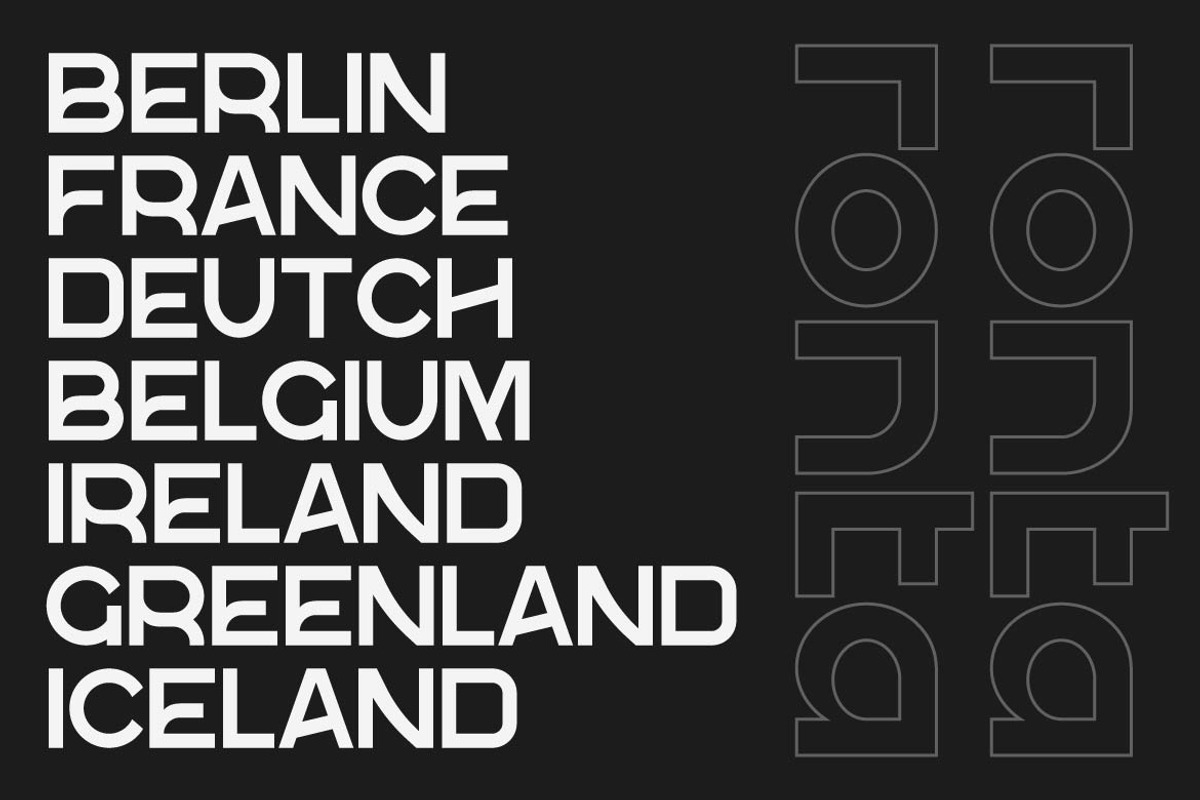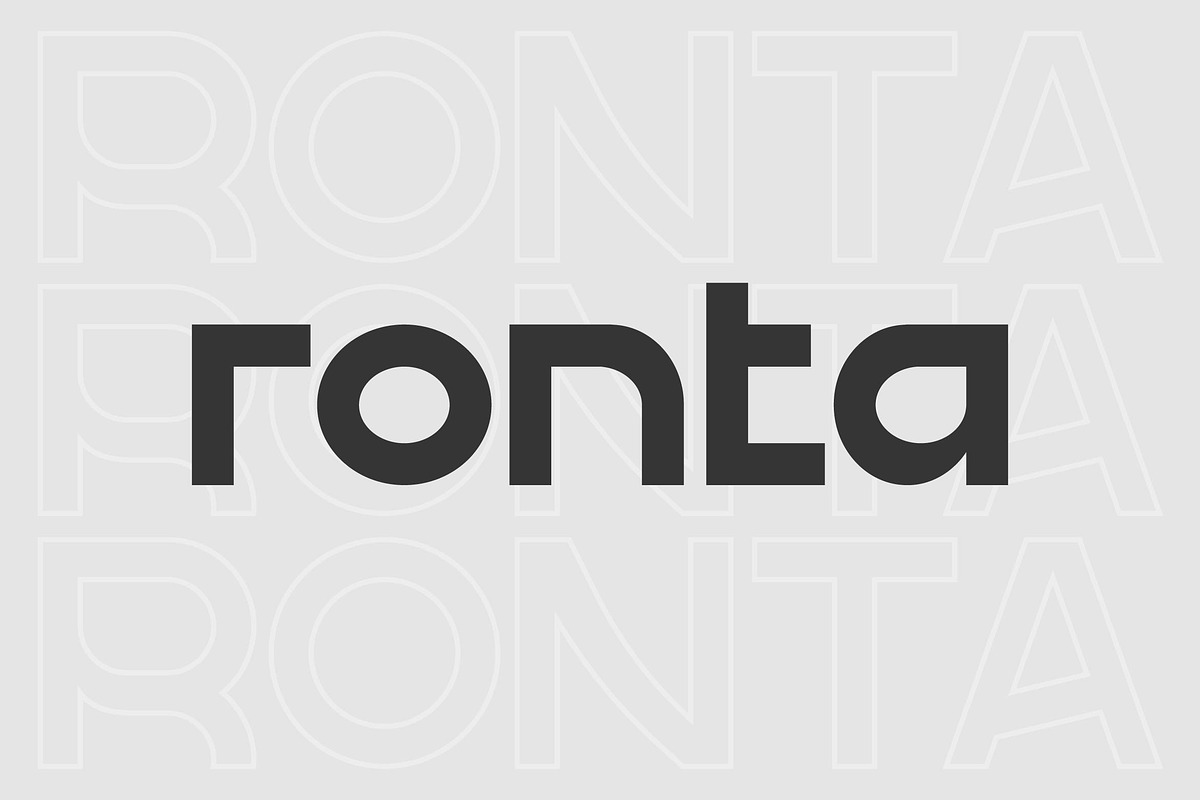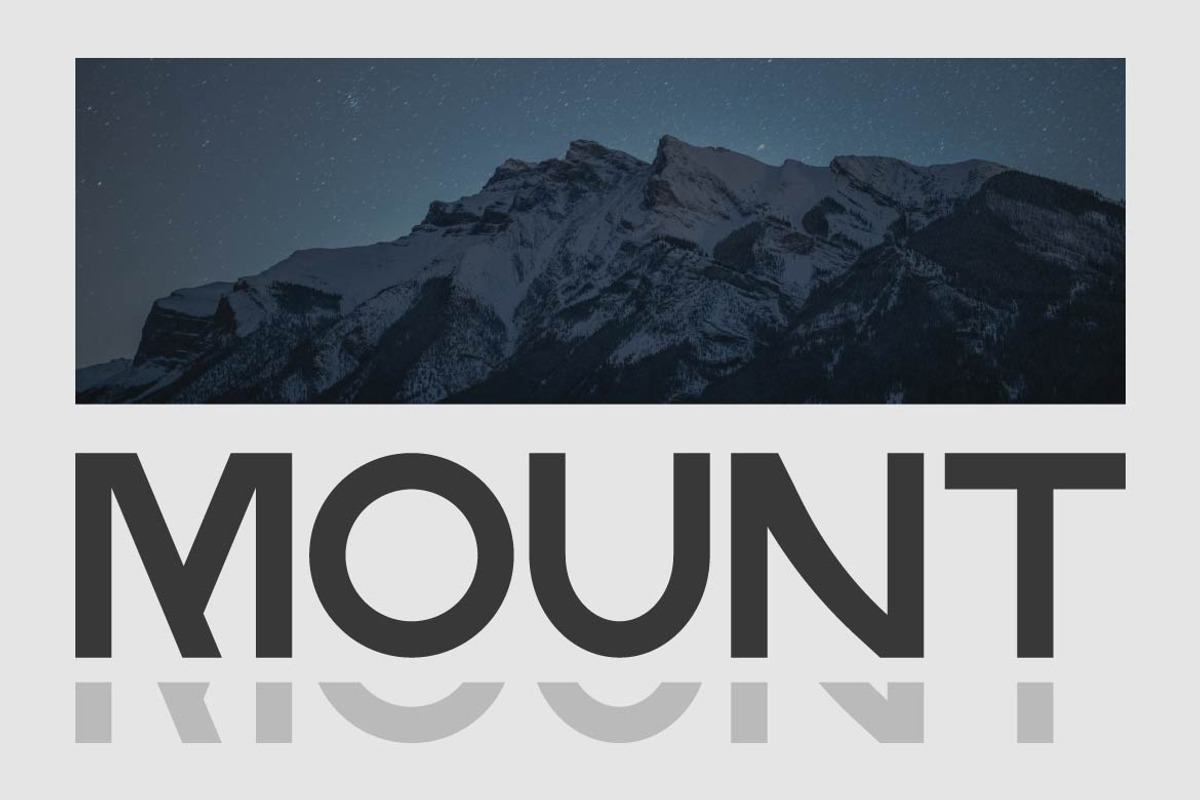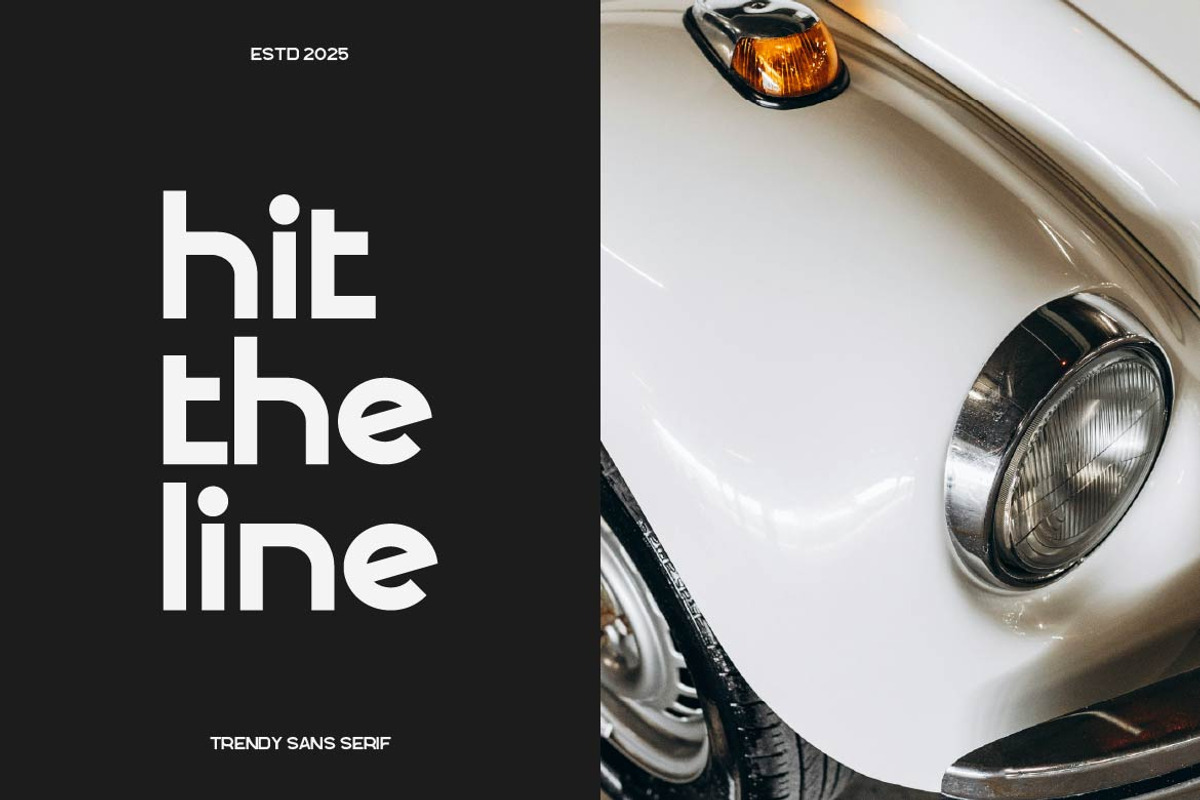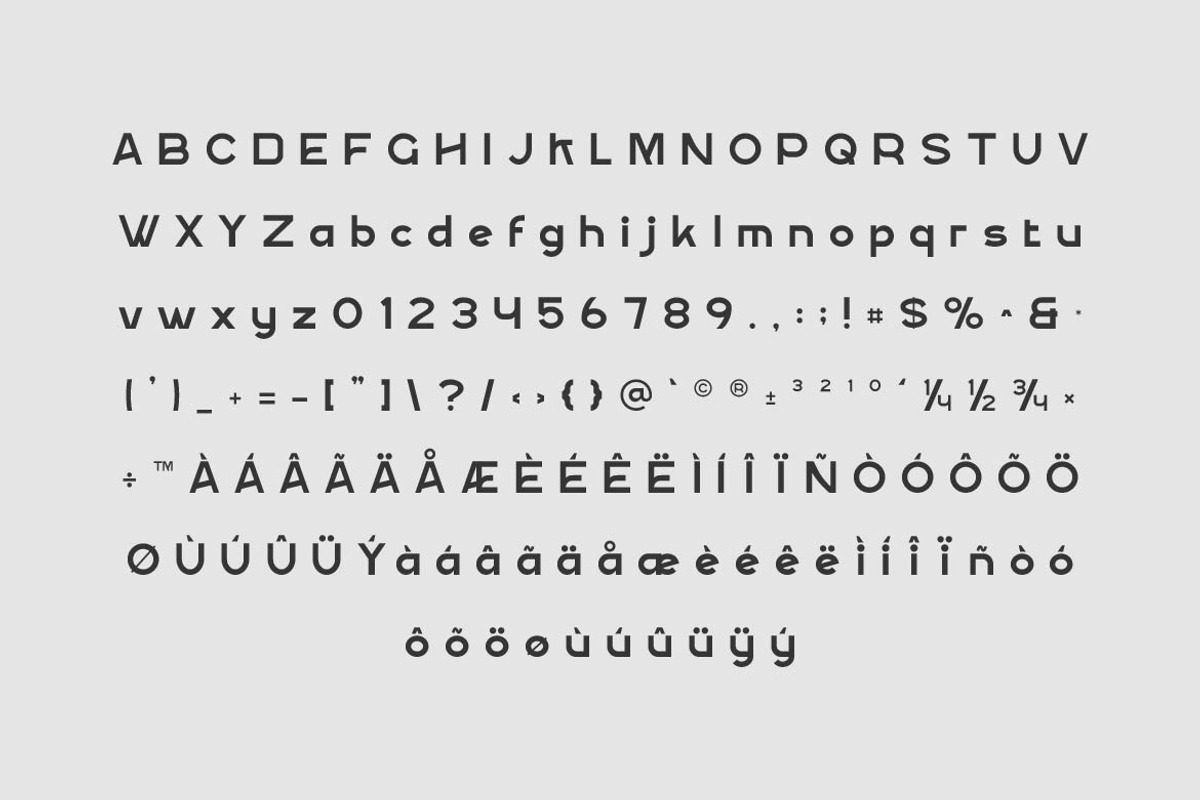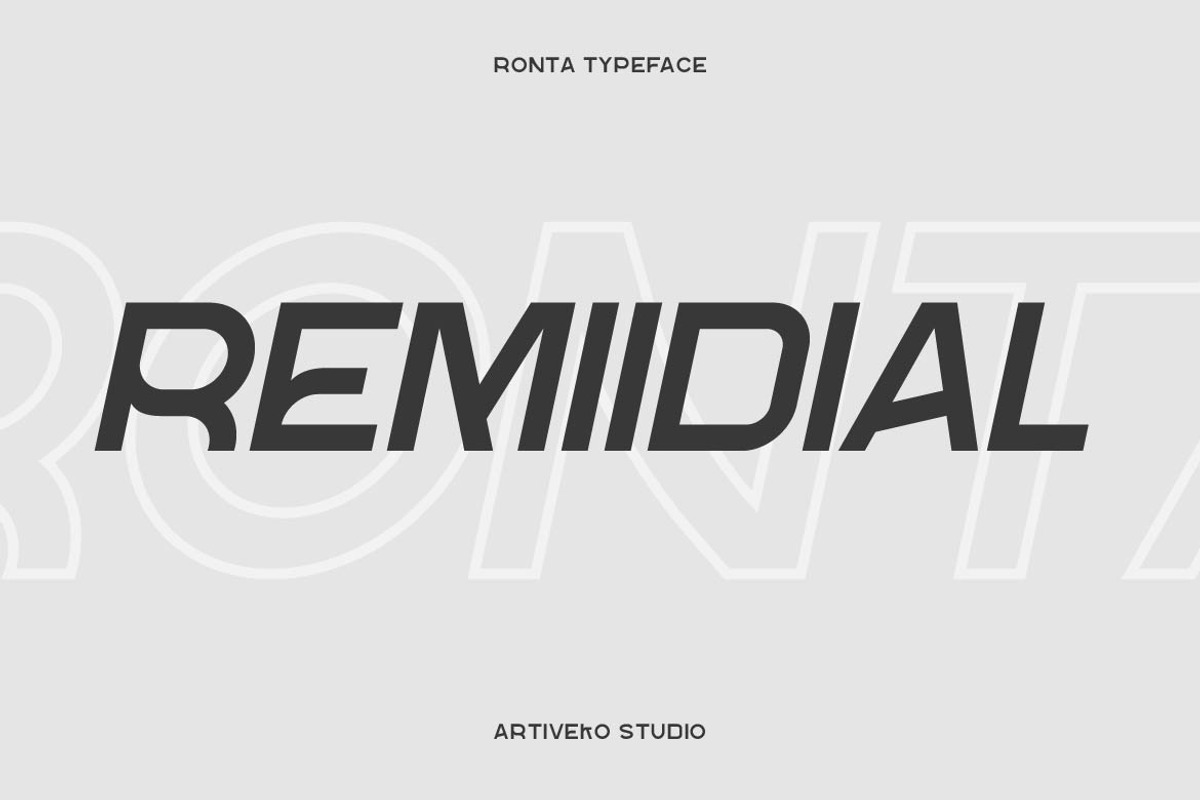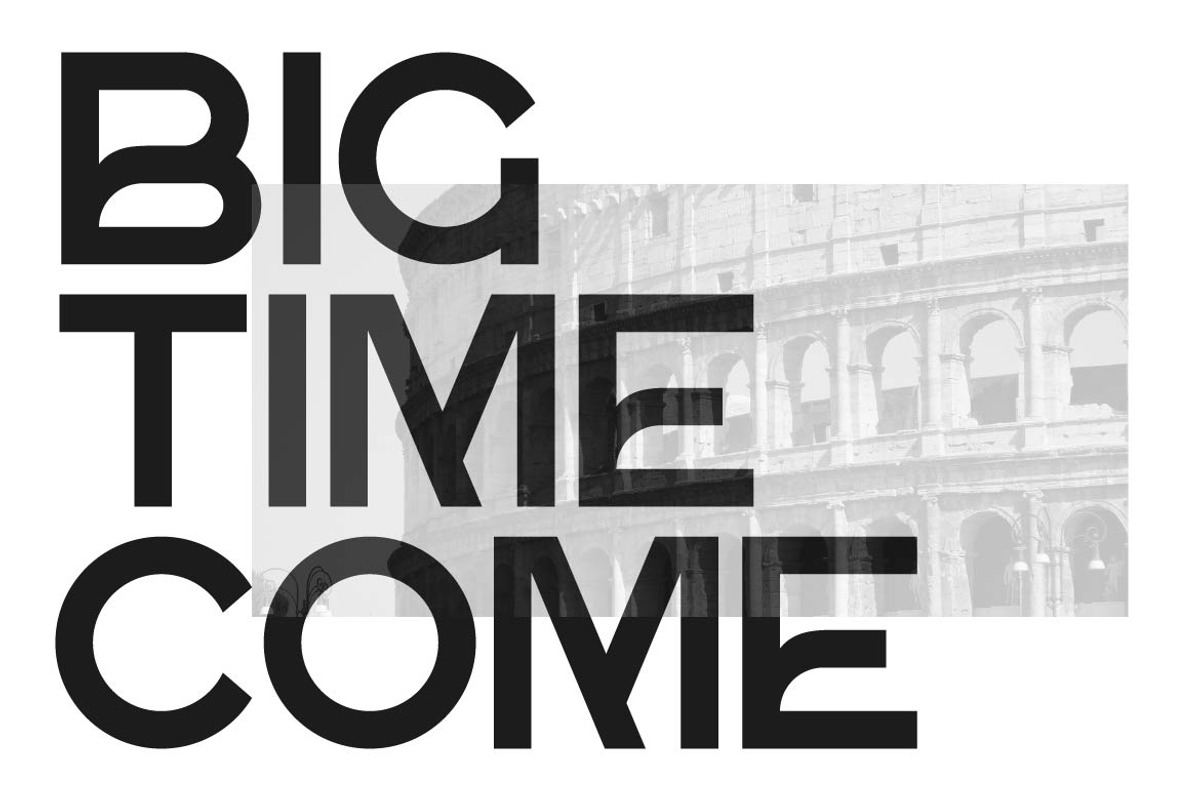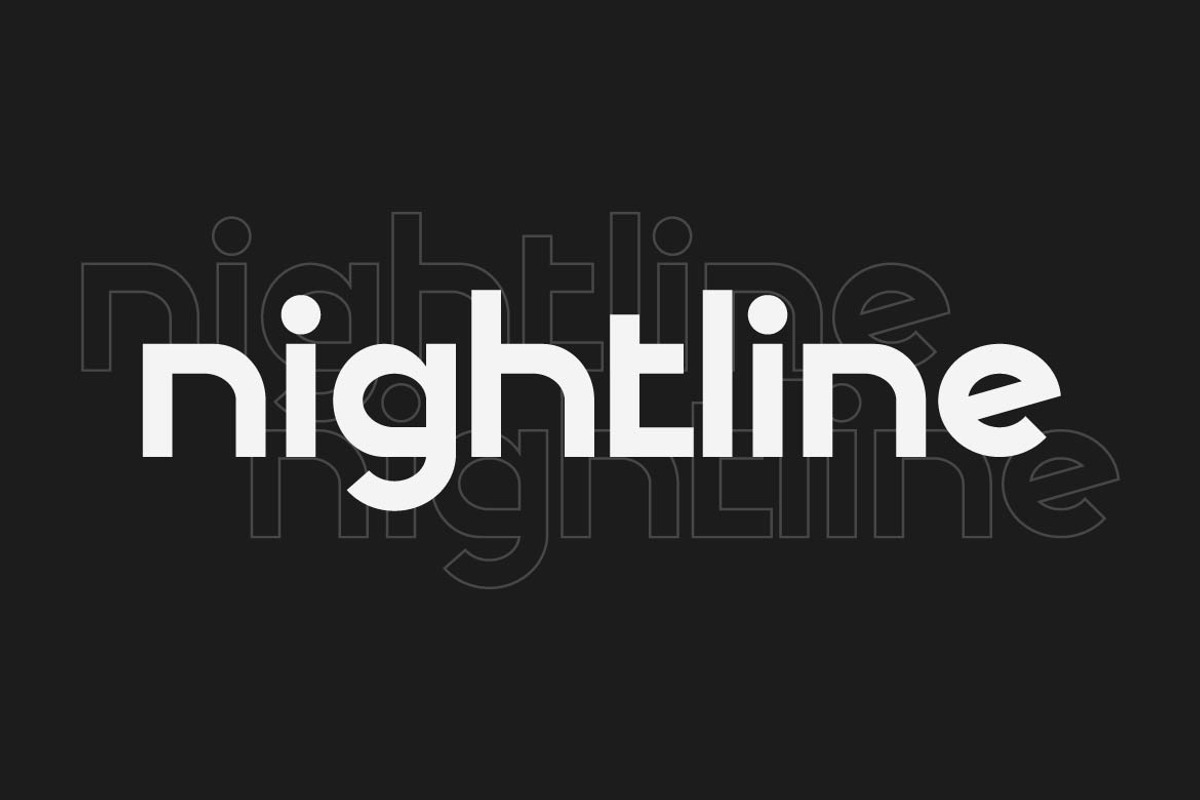
Ronta Elegant Sans Serif
Ronta is a contemporary sans serif font designed to bring originality and sophistication to your designs. Featuring clean geometry, subtle curves, and distinctive letterforms, Ronta strikes a balance between functionality and creative expression. It’s perfect for branding, logo design, packaging, editorial layouts, posters, and digital media projects that need a fresh and stylish look.